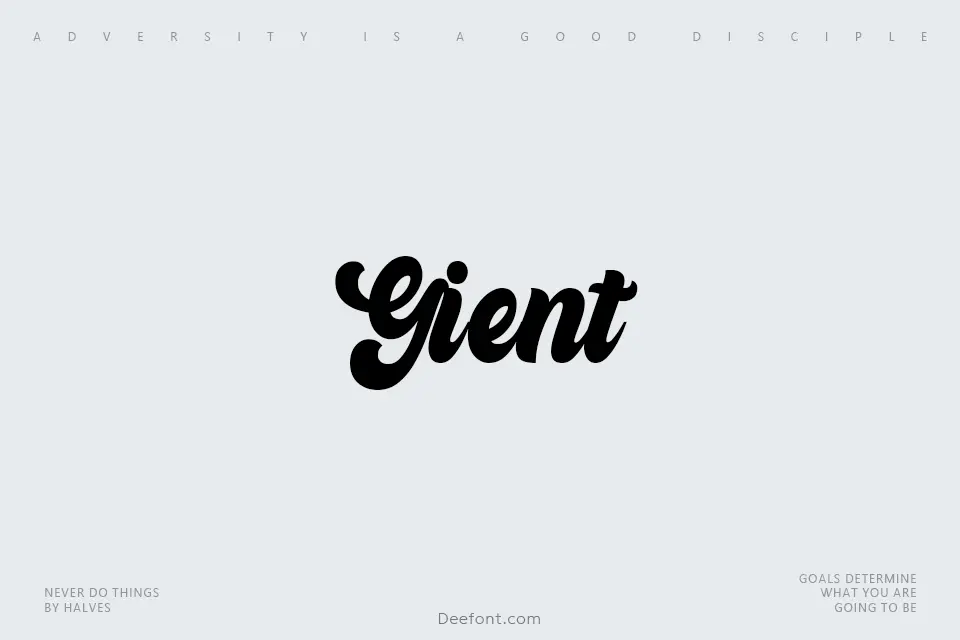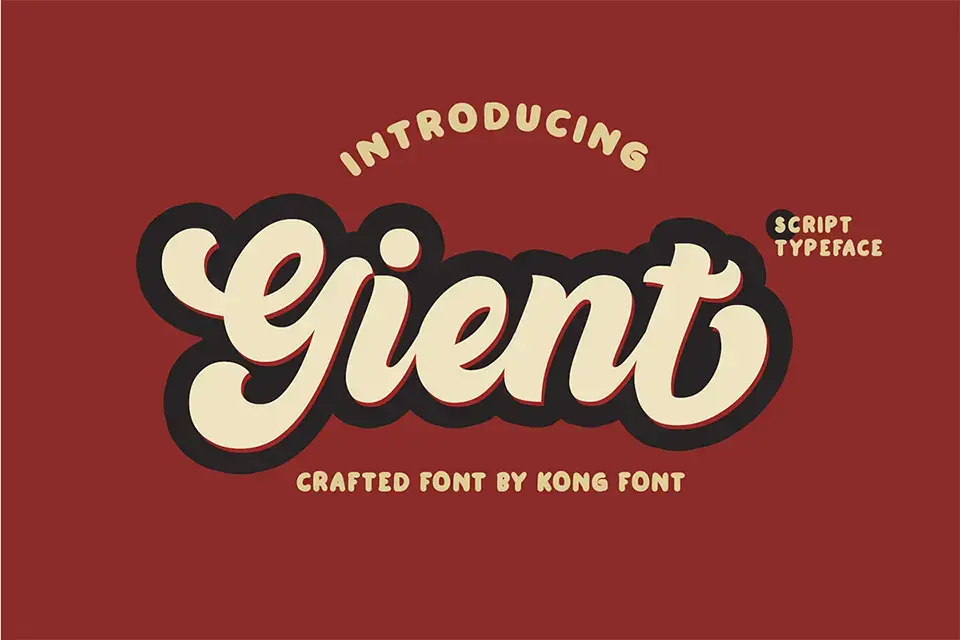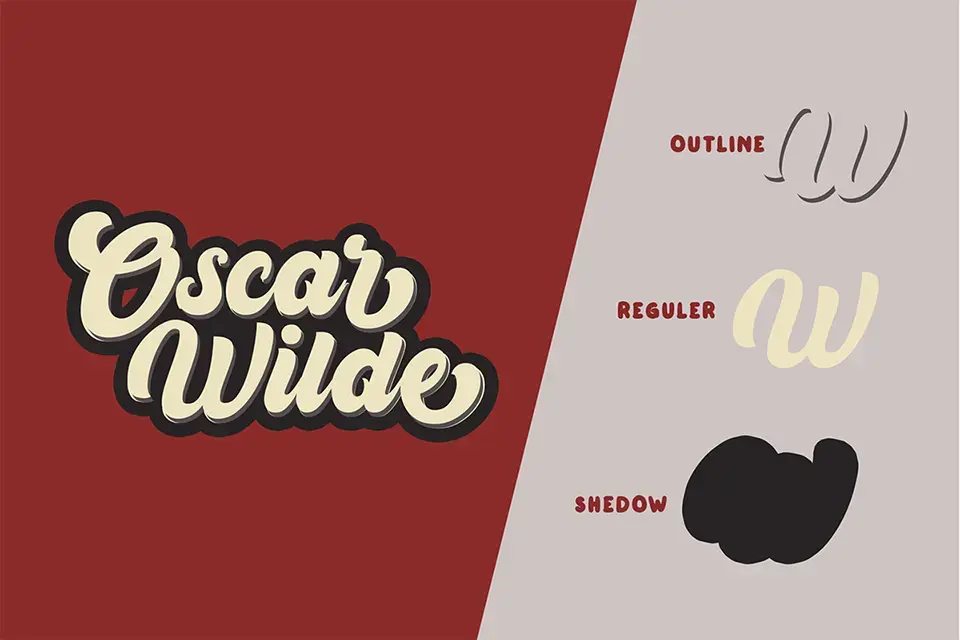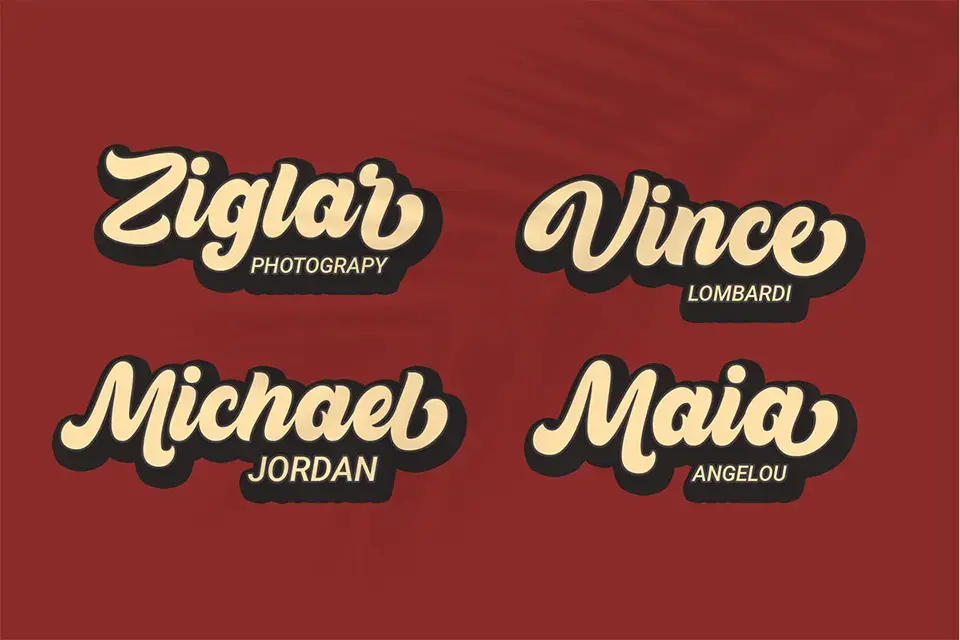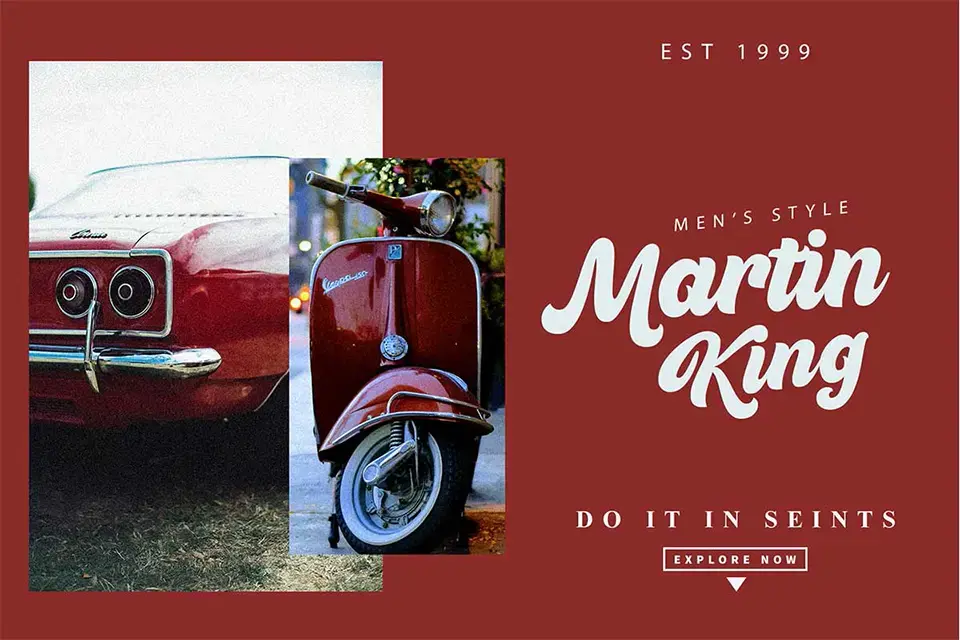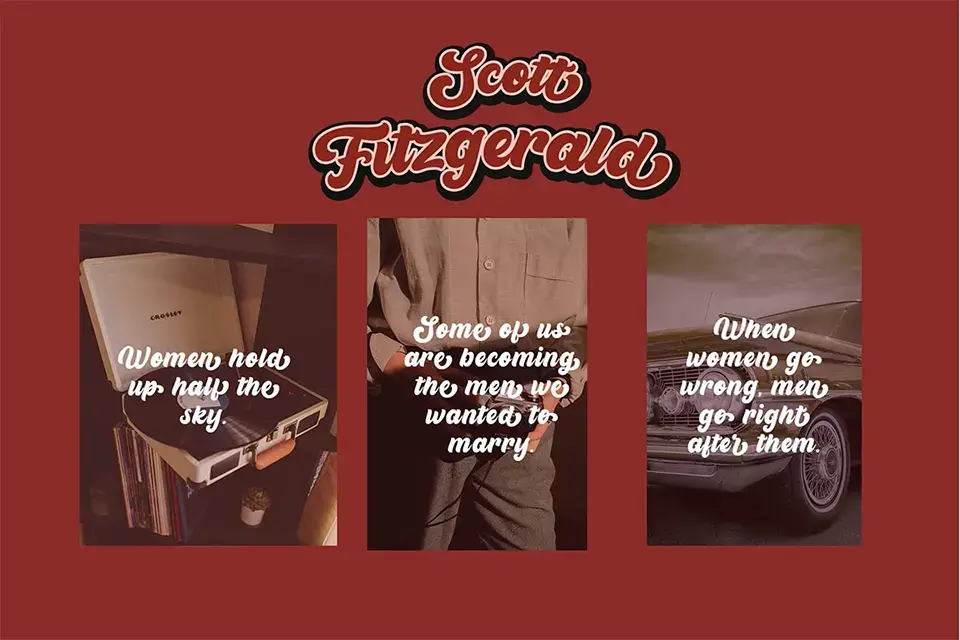
Gient Font
Gient is a sophisticated script typeface that combines ornamental elegance with retro charm, featuring flowing letterforms and decorative swashes ideal for creative headings and stylized poster design. With distinctive calligraphic strokes and refined terminals, this display font delivers a vintage aesthetic perfect for invitations, greeting cards, branding projects, and artistic typography. The font’s elegant character construction makes it suitable for editorial layouts, fashion graphics, and decorative applications where timeless sophistication meets contemporary design sensibilities.